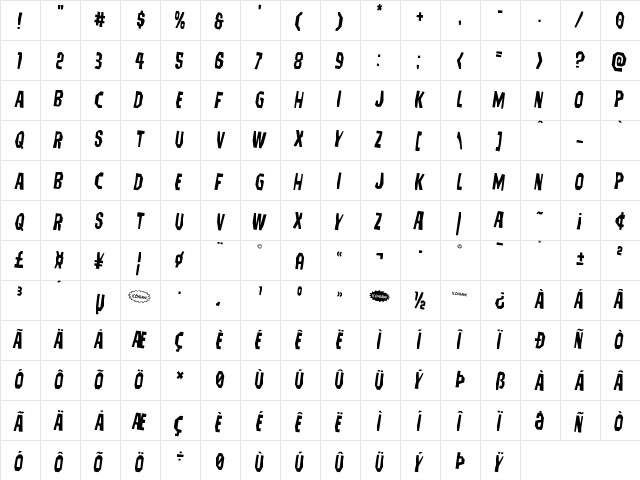
Hitchblock Staggered Rotated Regular
Design Context for Hitchblock Staggered Rotated Typeface
Hitchblock Staggered Rotated is a composed and adaptable typeface that performs quietly and consistently across a wide range of design contexts.